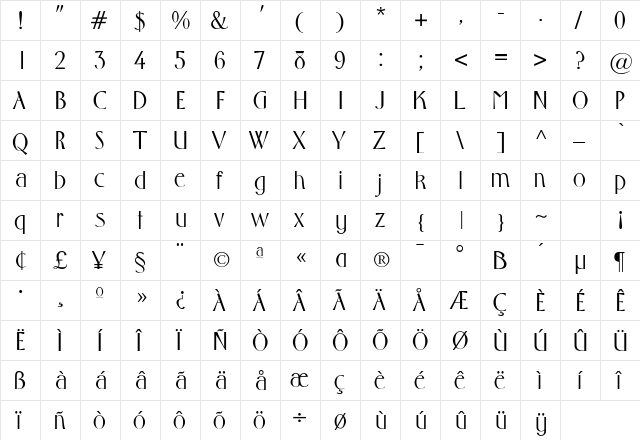
CapatolaSSK Regular
Design Context for CapatolaSSK Typeface
CapatolaSSK takes a measured approach to typography — its balanced proportions and neutral character make it a reliable workhorse for both digital and print work.
Pro Tip: Use CapatolaSSK in both headline and body roles to test its range before committing to a single application.